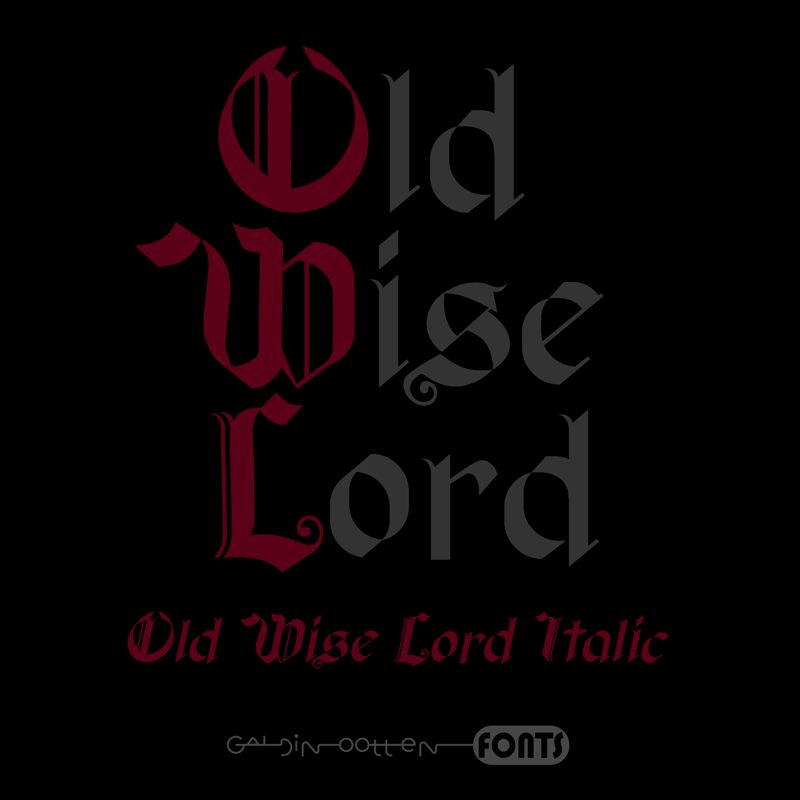
Old Wise Lord font family is a free Gothic font created by Galdino Otten Fonts. Multi-character and versatile, this font is capable of adding a historical feel to your paragraphs and titles. It resembles the classic traditional blackletter display with enough tweaks so that it still fits constant use in the modern day. Even though it’s a strong character on its own, you can still pair it with another font to achieve excellent results.
Gothic fonts are highly suitable for use in designs that evoke a sense of gravitas and a formal aura. The dramatic and ornate feel of such fonts, along with their unique letterforms, make them a popular choice for vintage or historical themes across diverse design elements such as posters, brochures, or magazine covers. Gothic fonts are also great for logo designs in brands pertaining to strong themes such as metal bands, tattoo parlors, or historical museums, helping them stand out from the crowd and get a unique personality.